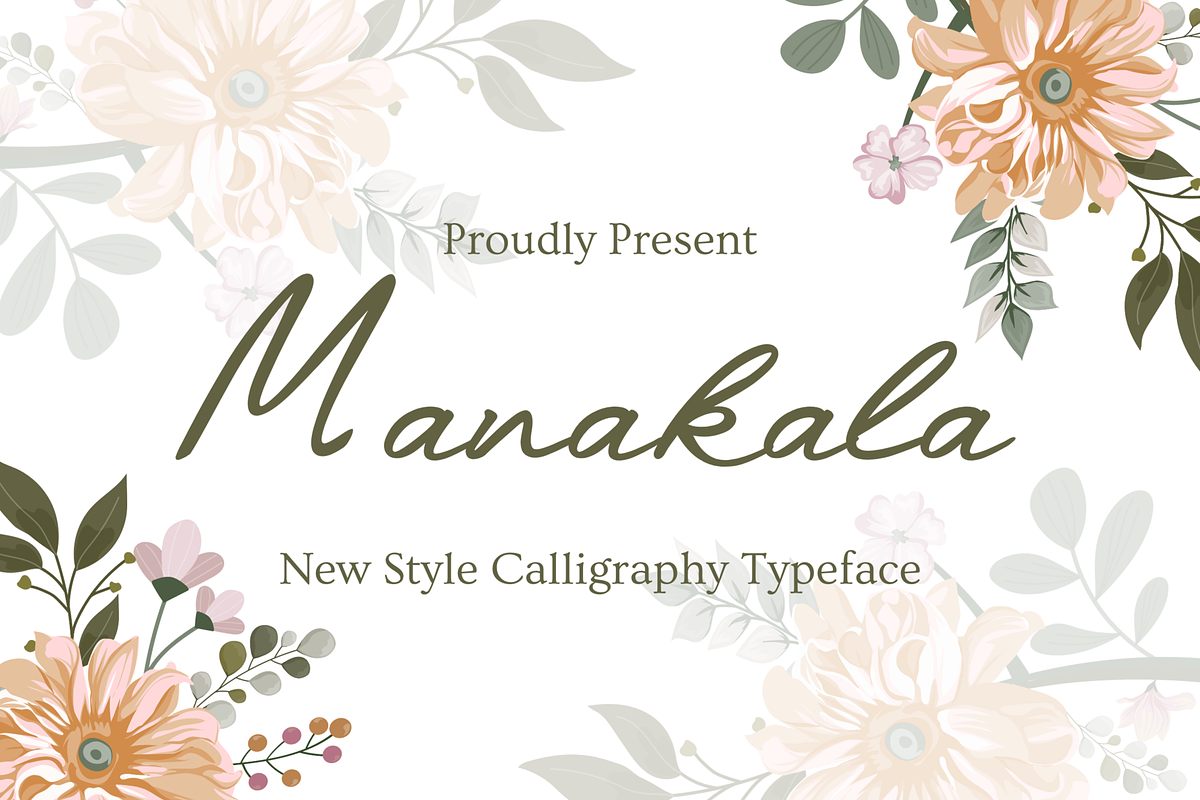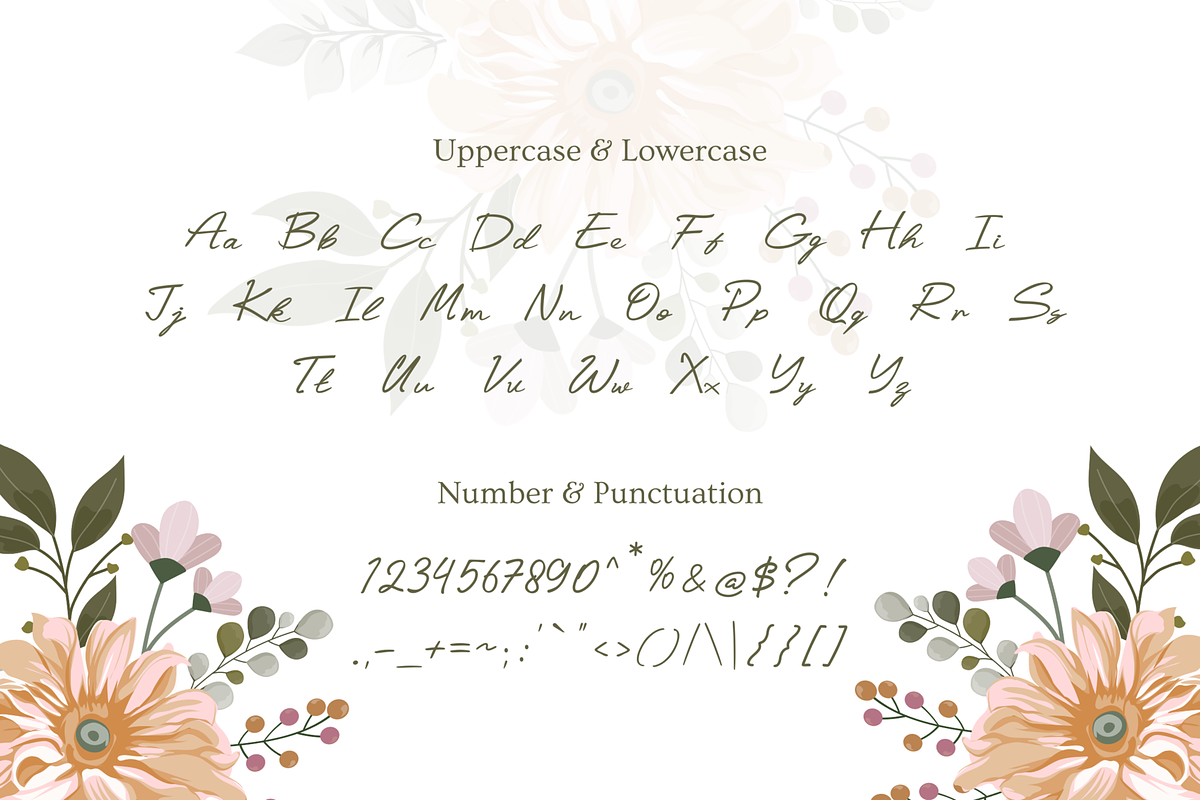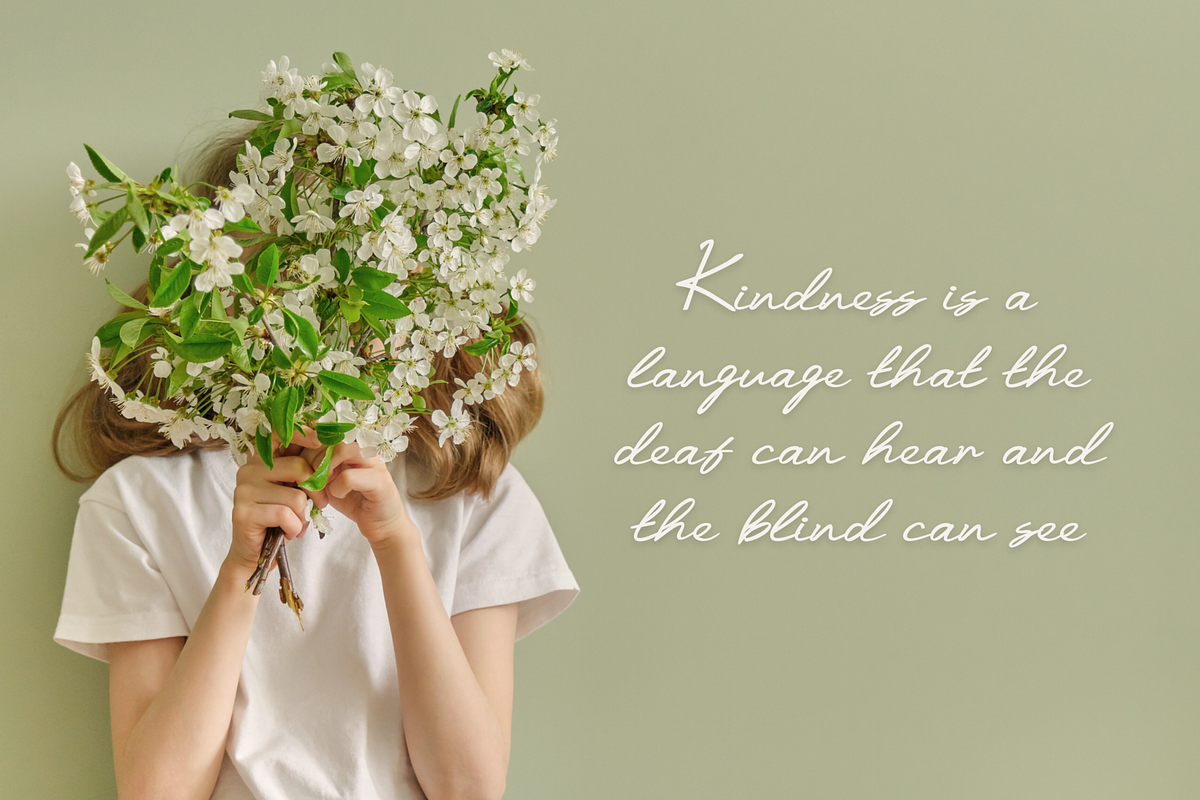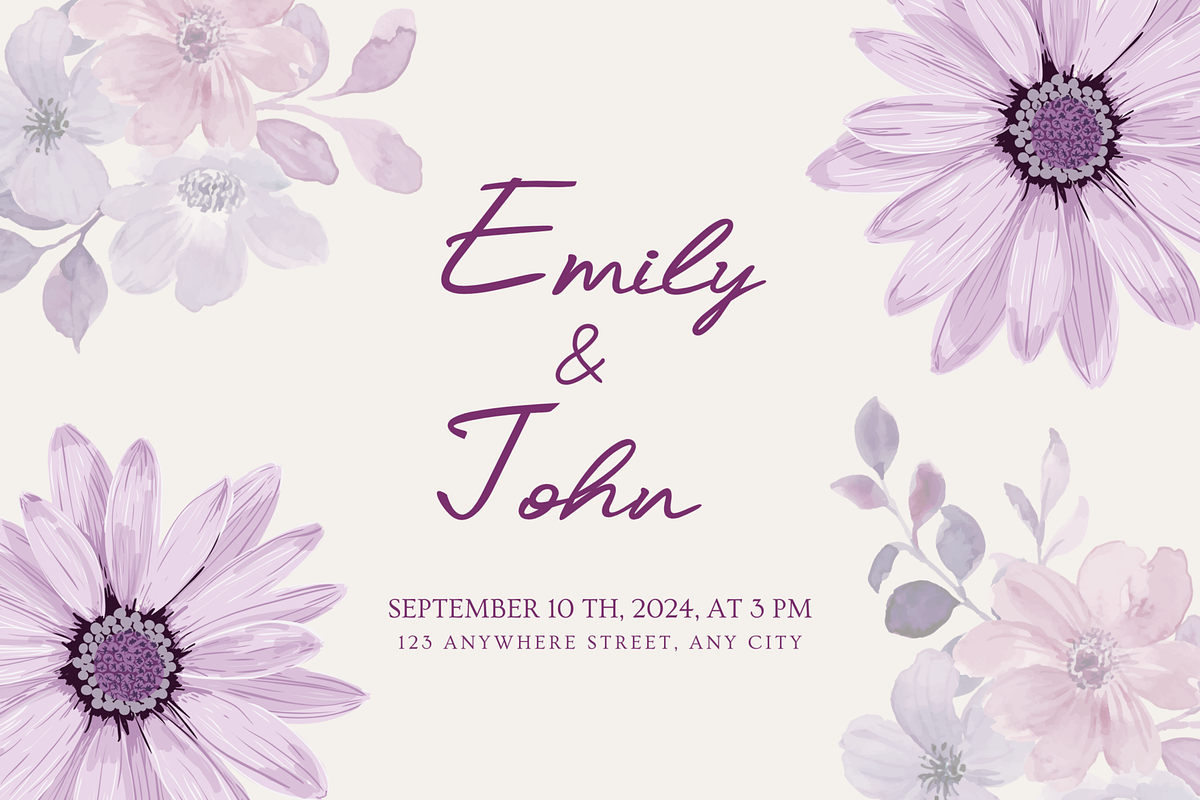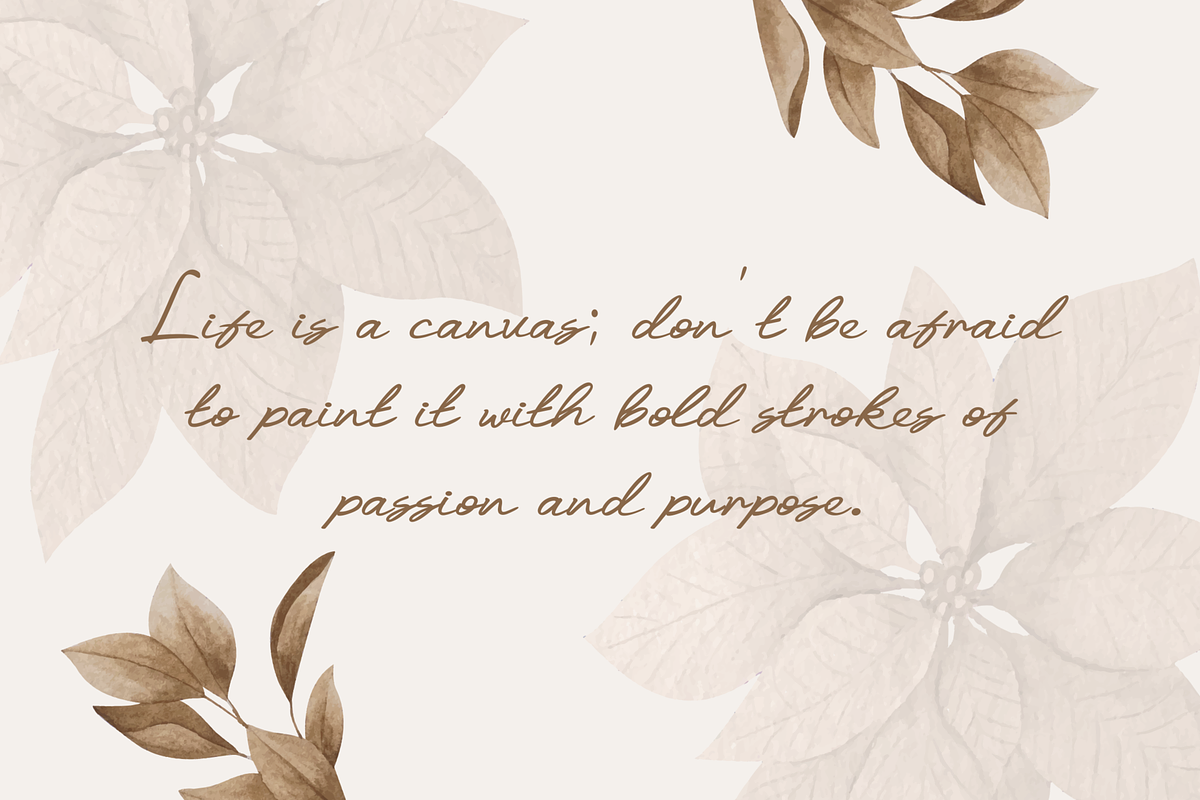
Manakala | New Style Calligraphy
Manakala font is characterized by a new style calligraphy font with modern letter design. The new style calligraphy font style also adds a simple and attractive feel that is approachable, making it a friendly and attractive choice for any project.